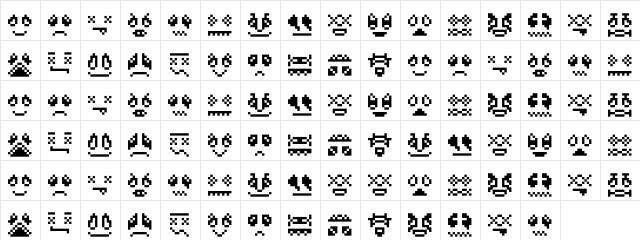
SkrewdUpSoulz Regular
Design Context for SkrewdUpSoulz Typeface
SkrewdUpSoulz is a composed and adaptable typeface that performs quietly and consistently across a wide range of design contexts.